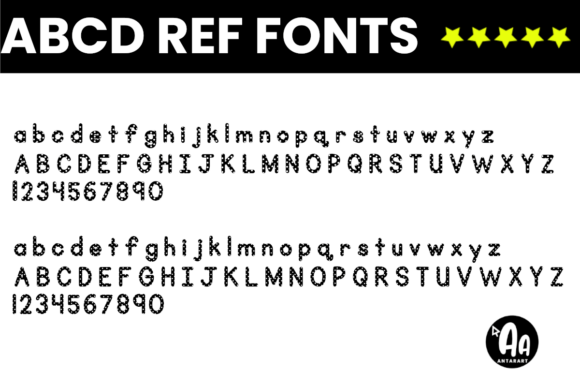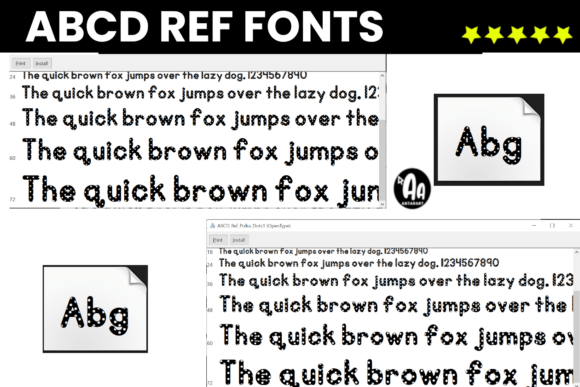
Adding a Dash of Whimsy to Your Designs
Have you ever stared at a blank page, trying to come up with the perfect font to capture the essence of your project? You want something that’s playful, yet easy to read; something that adds a touch of whimsy without overpowering the message. That’s exactly what the Abcd Ref Polka Dot Font download aims to deliver.
This charming font features two stylish variations, each with bold, polka dot-designed letters and numbers that are perfect for a wide range of creative projects. From classroom decor to posters, the Abcd Ref Polka Dot Font is an invaluable asset for designers looking to add a little personality to their work. Its versatility and ease of use make it an ideal choice for both digital and printable projects, making it a valuable addition to any designer’s toolkit.
Abcd Ref Polka Dot Font Key Features
- Font Family: Abcd Ref Polka Dot
- Unique Characteristic: Polka dot design with random dot placement for a unique, playful look
Designer Review: Abcd Ref Polka Dot Font
I recently had the chance to work with the Abcd Ref Polka Dot Font, and I must say it’s a unique addition to any design project. ✨ One of the things that stands out about this font is its playful, whimsical feel, which is perfect for creating eye-catching headlines or titles.
Here are some of the things that I think work well with this font:
- ✨ Versatility: The Abcd Ref Polka Dot Font can be used in a variety of contexts, from children’s books to fashion brands.
- ✨ Expressiveness: The font’s playful nature makes it easy to convey a sense of fun and energy in your designs.
- ✨ Customization: The font can be easily customized to fit your brand’s specific needs, whether that’s adjusting the size, color, or spacing.
- ⚠️ Legibility: In smaller sizes, the font can be difficult to read, which may limit its use in certain contexts.
- ⚠️ Overuse: The font’s playful nature can also make it feel gimmicky if overused, so be sure to use it thoughtfully.
Overall, I think the Abcd Ref Polka Dot Font is a great addition to any designer’s toolkit. With a little creativity and restraint, it can add a lot of personality and visual interest to your designs.
Tips for Getting the Most Out of Abcd Ref Polka Dot Font
Experiment with different font sizes, colors, and styles to create a unique and eye-catching design.
Use Abcd Ref Polka Dot Font for titles, headings, and other text elements that require emphasis.
Combine with other fonts and design elements to create a cohesive and visually appealing design.
Abcd Ref Polka Dot Font is suitable for a variety of design projects, including:
– Children’s books and educational materials
Alternatives to Abcd Ref Polka Dot Font for Designers
Pacifico is a beautiful, elegant script font ideal for creating a sense of sophistication and luxury in designs. It’s perfect for branding, invitations, and other creative projects where a touch of refinement is needed. In comparison to Abcd Ref Polka Dot Font, Pacifico is more refined and less playful, making it suitable for formal designs.
Great Vibes is a modern, cursive font with a relaxed and casual feel. It’s ideal for creating a friendly and approachable atmosphere in designs. Compared to Abcd Ref Polka Dot Font, Great Vibes is more laid-back and less whimsical, making it suitable for designs that require a sense of ease and comfort.
Carolyna Pro is a modern script font with a touch of elegance and sophistication. It’s perfect for creating a sense of luxury and refinement in designs. In comparison to Abcd Ref Polka Dot Font, Carolyna Pro is more refined and less playful, making it suitable for formal designs and branding projects.